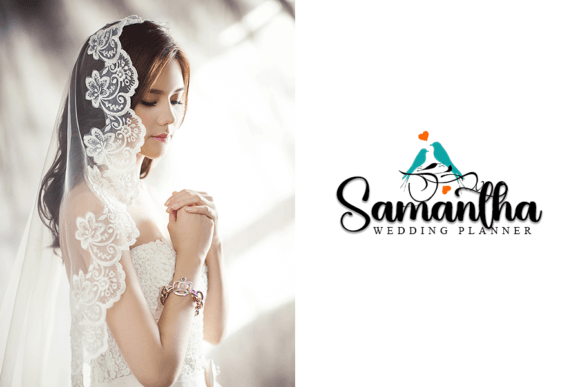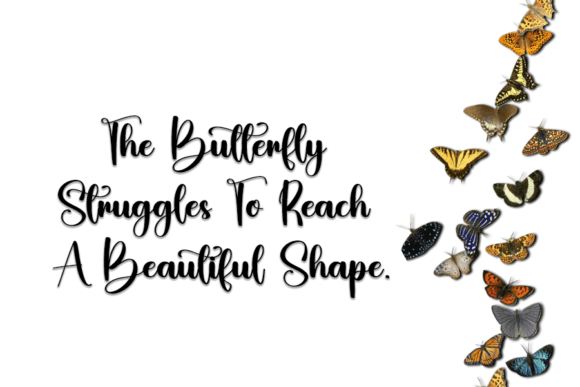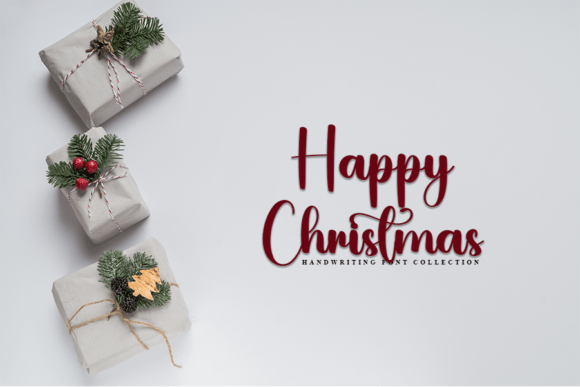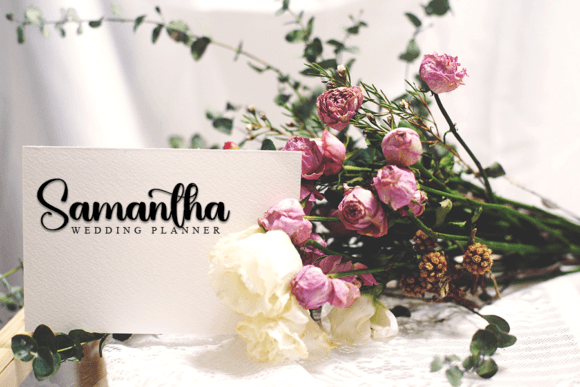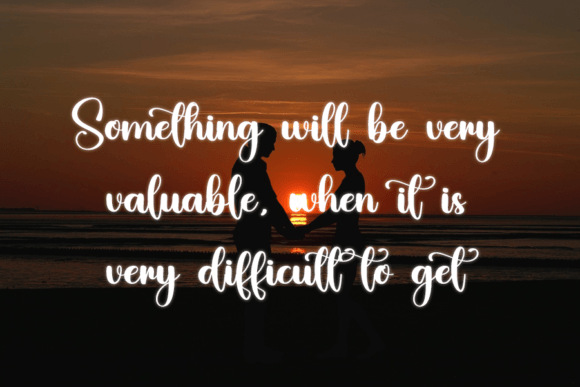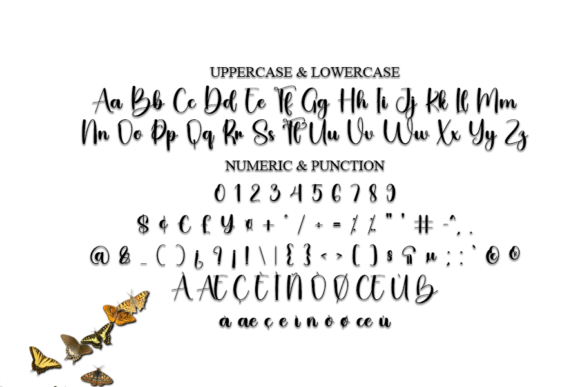
Take Your Designs to New Heights with Butterflies Font
Have you ever found yourself in the middle of a creative project, struggling to find the perfect font to bring your vision to life? That’s where the magic of the right font comes in – and for many designers, that font is Butterflies. This stunning script font is not just a pretty face; it’s a powerful tool that can elevate any project from basic to breathtaking.
Whether you’re crafting a handmade card, designing a presentation, or working on a digital project, Butterflies Font is the perfect companion to help you achieve your creative goals. Its bold, gorgeous style makes it versatile and valuable for designers who want to add a touch of elegance and sophistication to their work.
Key Features of Butterflies Font
- Unique Characteristics: The Butterflies Font features a unique, whimsical design with intricate details and flourishes, making it perfect for adding a touch of elegance and sophistication to designs.
- Language Support: The font supports a wide range of languages, including English, Spanish, French, German, Italian, and many others, making it a versatile choice for global designs.
Designer Review: Butterflies Font
Overall, I think the Butterflies Font has some beautiful and whimsical elements, especially when used in larger sizes ✨. The organic, hand-drawn feel of the letters is quite charming and adds a touch of personality to any design.
The font’s best features include:
- Its unique, flowing lines that evoke a sense of movement and freedom ✨.
- Its wide range of font weights, from light to bold, allowing for versatility in different design applications ✨.
- Its support for a variety of languages, making it suitable for international projects.
However, there are a few limitations to consider ⚠️:
- The font may not be as legible in smaller sizes, which could make it difficult to read in certain contexts ⚠️.
- Some users may find the font’s hand-drawn aesthetic to be too playful or childish for certain design applications ⚠️.
- Children’s book covers and illustrations
- Custom logos and branding
- Whimsical and playful graphic designs
- Use the Butterflies Font for the main invitation text, such as the wedding date and time.
- Pair the font with elegant, cursive script fonts to create a romantic and dreamy feel.
- Combine with watercolor illustrations of flowers or butterflies to add a touch of whimsy.
- Use a soft color palette with pastel shades to create a dreamy atmosphere.
- Add a custom illustration of the wedding venue or a special symbol that holds meaning for the couple.
- Use the Butterflies Font for the main quote, emphasizing the beautiful and elegant lines of the font.
- Pair the font with bold, sans-serif fonts to create contrast and visual interest.
- Combine with minimalist illustrations or geometric patterns to create a modern and sleek design.
- Use a bold and bright color scheme to grab attention and make the quote stand out.
- Add a simple background texture or pattern to add depth and interest.
Overall, I think the Butterflies Font is a lovely addition to any designer’s toolkit. While it may have some limitations, its unique charm and versatility make it a great choice for the right project.
Practical Application Guide: Butterflies Font
The Butterflies font is ideal for creating whimsical and playful designs. To get the most out of it, try combining it with other fonts and design elements that have a similar feel. You can also use it to create custom logos, invitations, and other graphic designs.